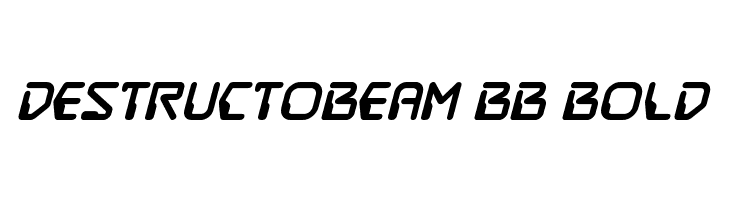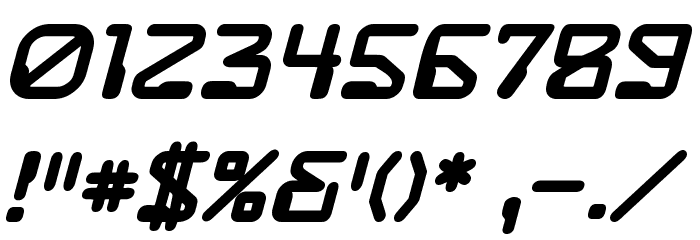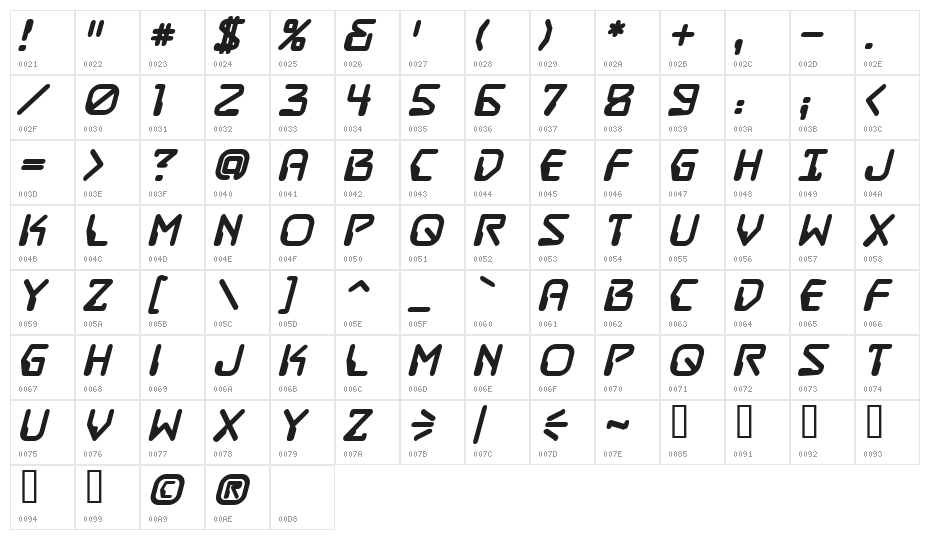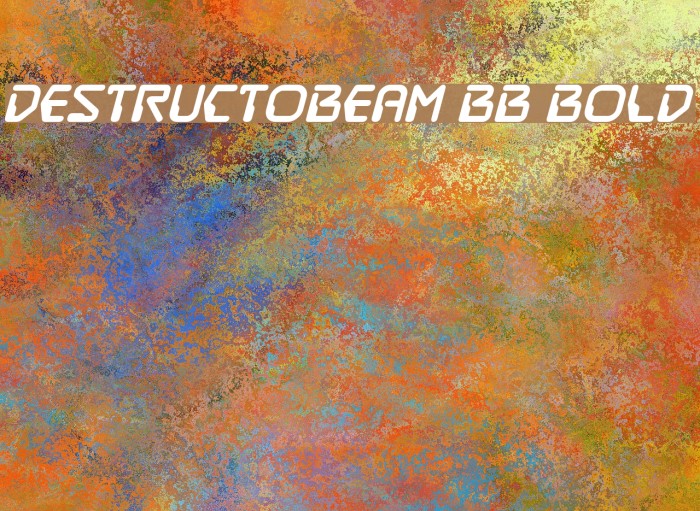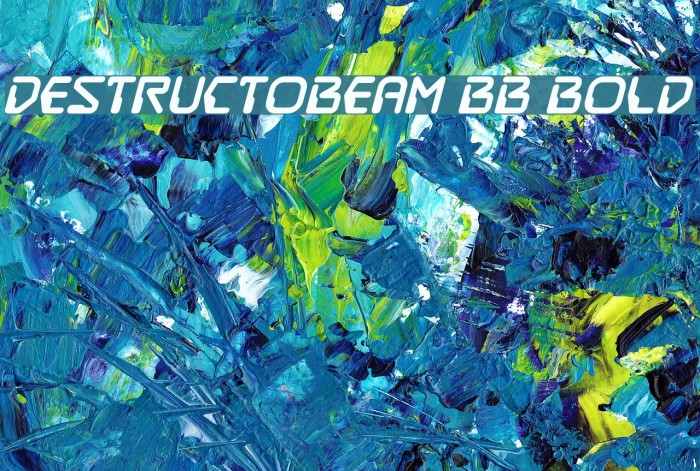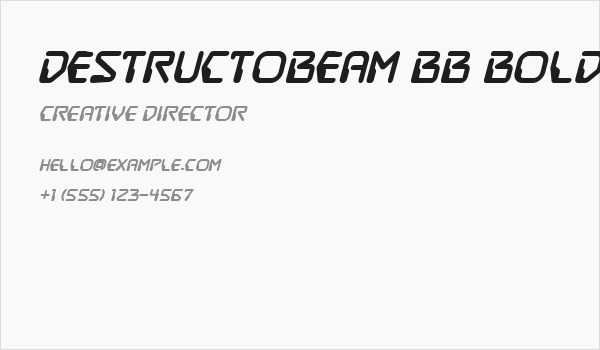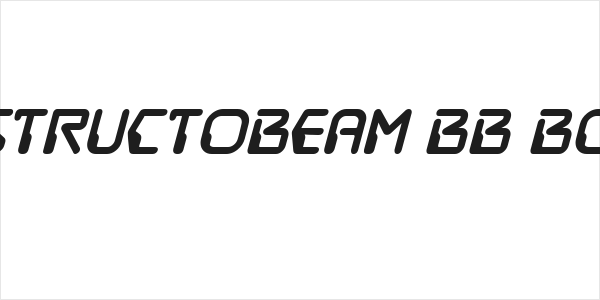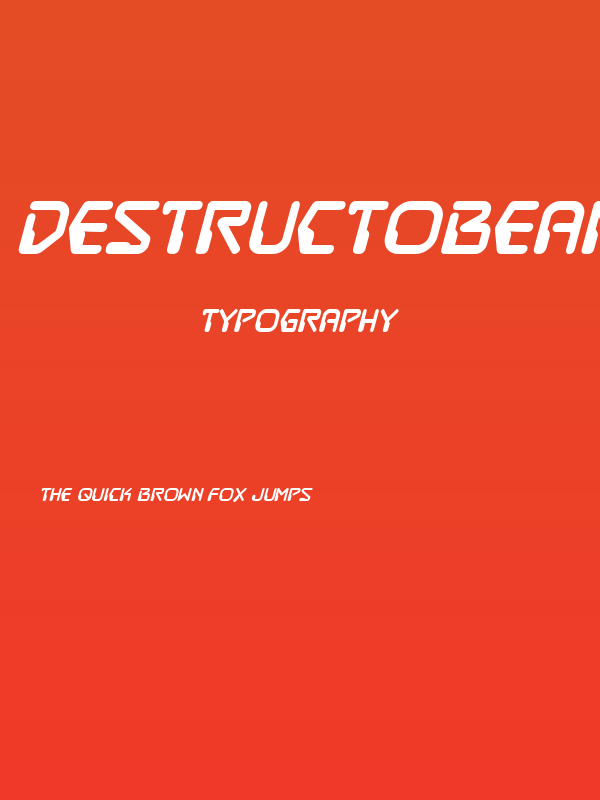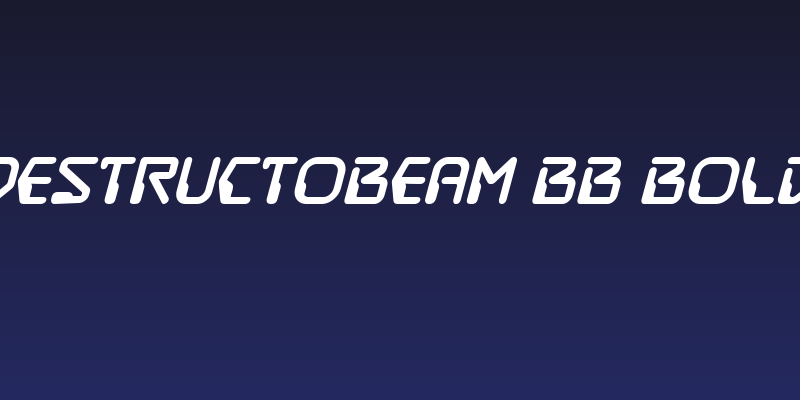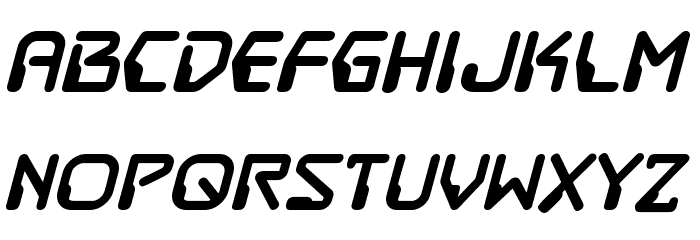
DestructoBeam BB Bold Font
DestructoBeam BB Bold Description
This font features a bold and futuristic design with a distinct, angular style. The characters are slightly slanted, giving a sense of motion and energy. The strokes are thick and consistent, providing a strong visual impact. The geometric shapes and sharp edges contribute to a modern and dynamic appearance. The font is well-suited for projects that require a bold statement, such as technology-related branding or sci-fi themed designs. Its unique style makes it stand out, while maintaining legibility across various sizes.
| Proposed Projects | Ideal for technology branding, sci-fi themes, video game titles, and futuristic posters. |